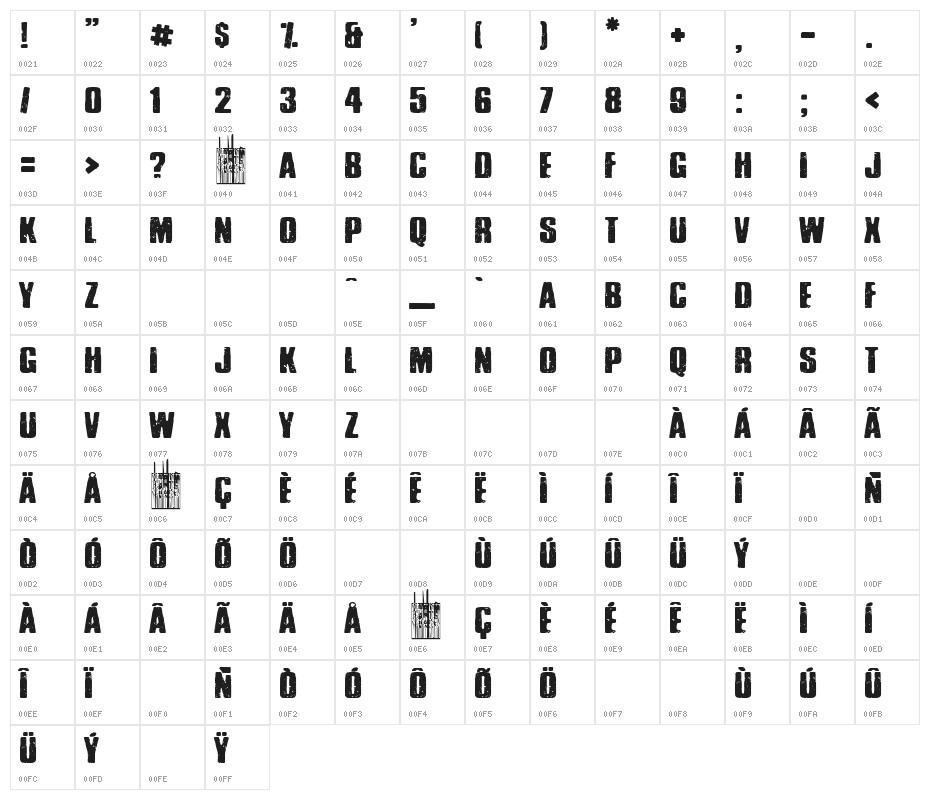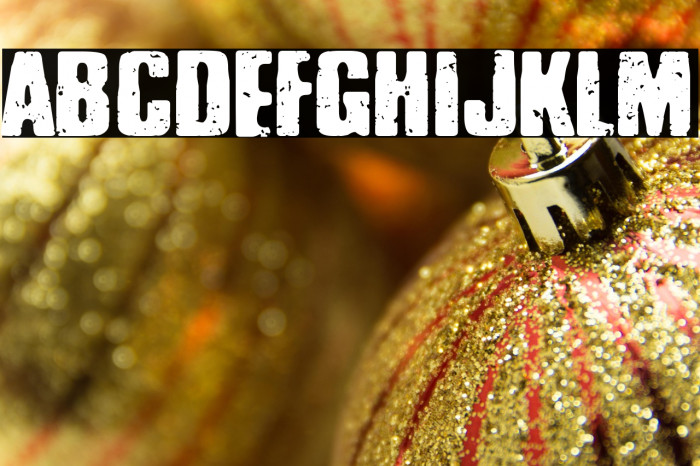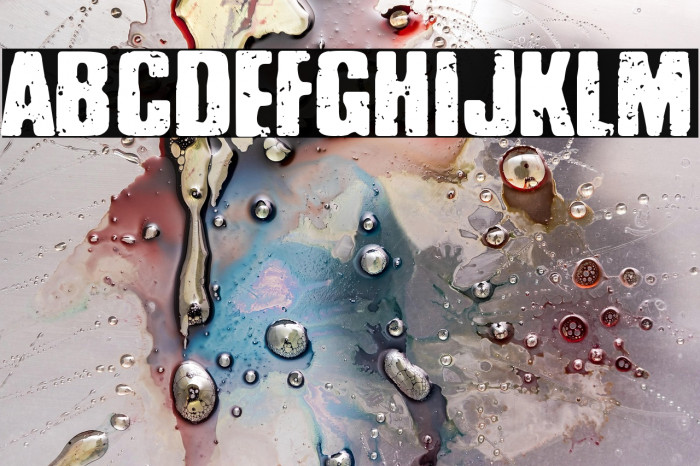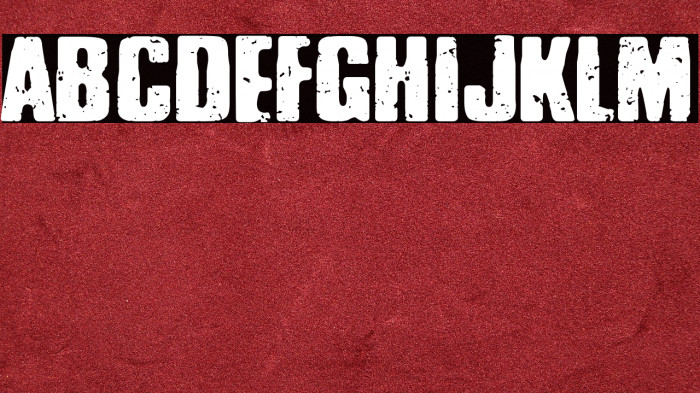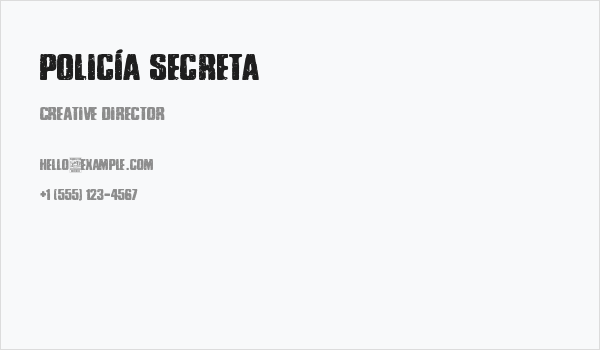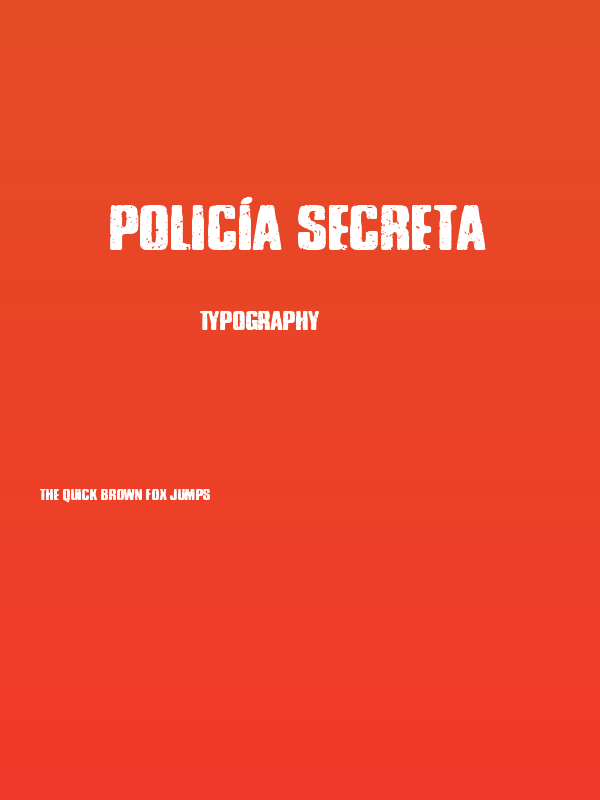
Policía Secreta Font
Policía Secreta Description
This font features a bold, distressed style with a textured, grunge appearance. The characters are robust and impactful, making them ideal for creating a strong visual presence. The uppercase and lowercase letters maintain a consistent weight, with a slightly condensed width that enhances their boldness. The numbers and special characters follow the same design, ensuring uniformity across all elements. The rough edges and uneven texture give it a vintage, worn-out look, reminiscent of old posters or signage. This font is perfect for projects that require a rugged, industrial feel.
| Proposed Projects | Ideal for posters, album covers, branding for edgy products, or any design needing a strong, vintage aesthetic. |